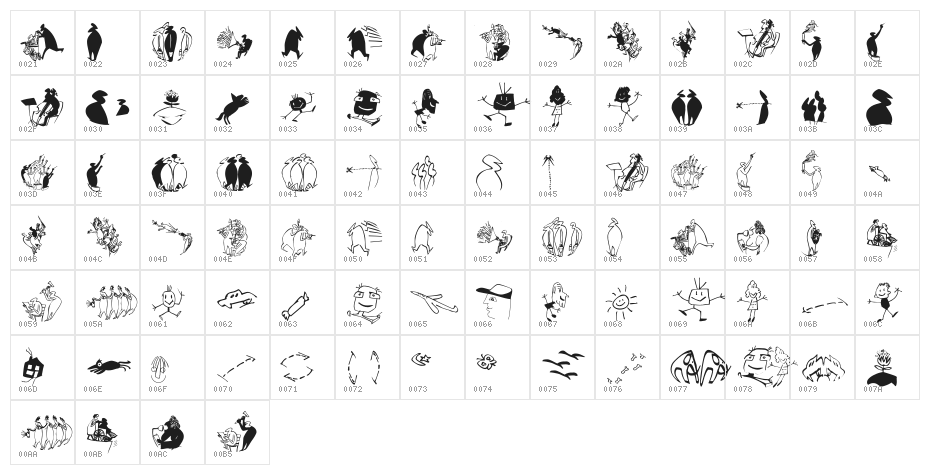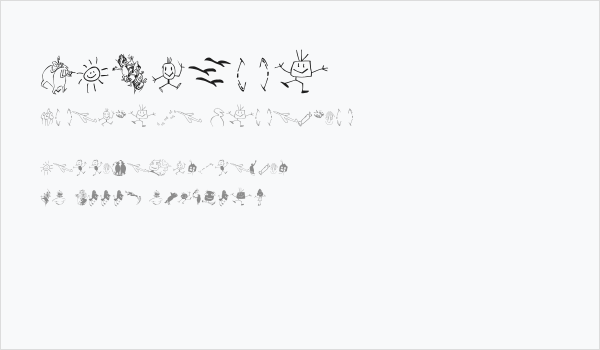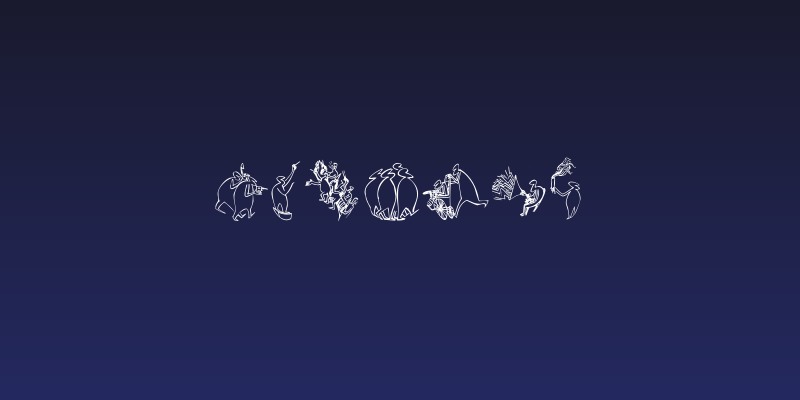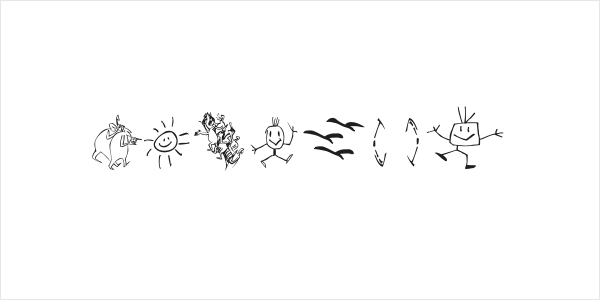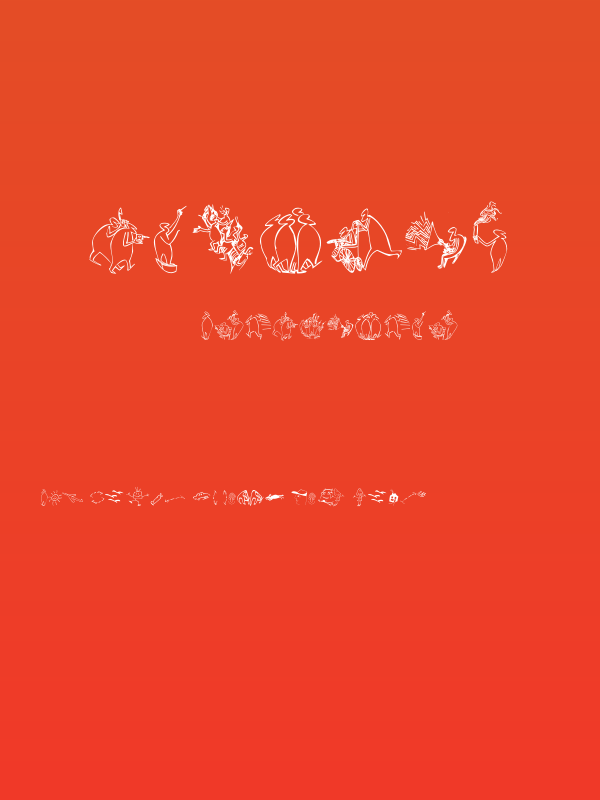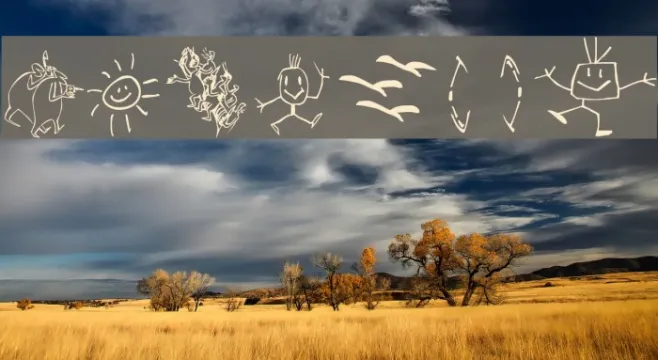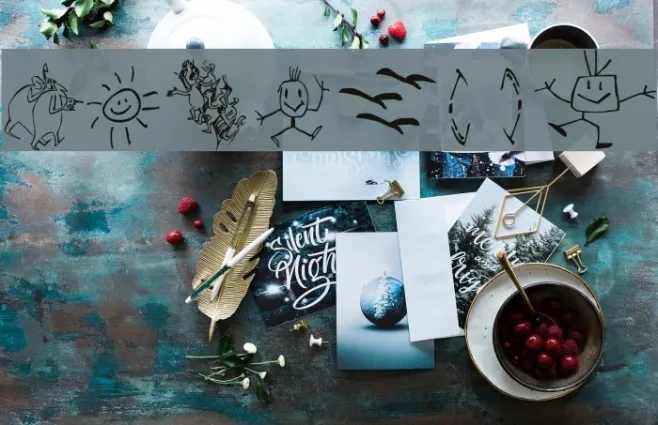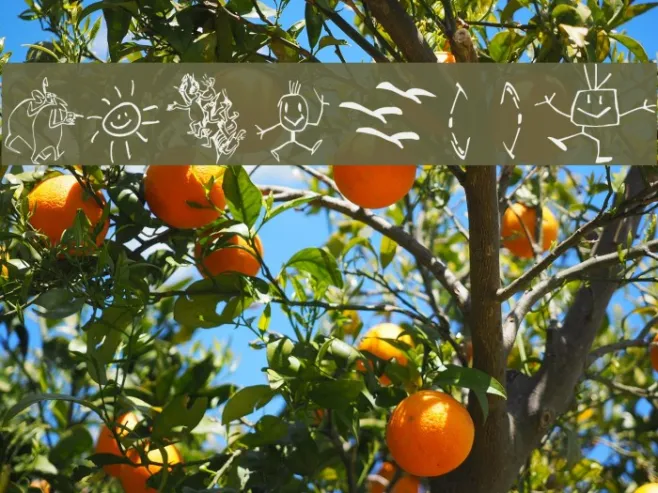
OhLauri Font
OhLauri Description
A highly decorative and whimsical font composed of playful, hand-drawn illustrations and abstract figures in place of traditional letterforms and symbols. Each character is unique, featuring cartoon-like people, animals, and imaginative shapes, resulting in a lively and artistic visual style.
| Overall Style | Decorative, Whimsical, Artistic |
| Use Case | Logos, Posters, Illustrative Headlines, Children’s Materials |
| Proposed Projects | Children’s books, creative posters, party invitations, art projects, branding for playful or artistic ventures. |